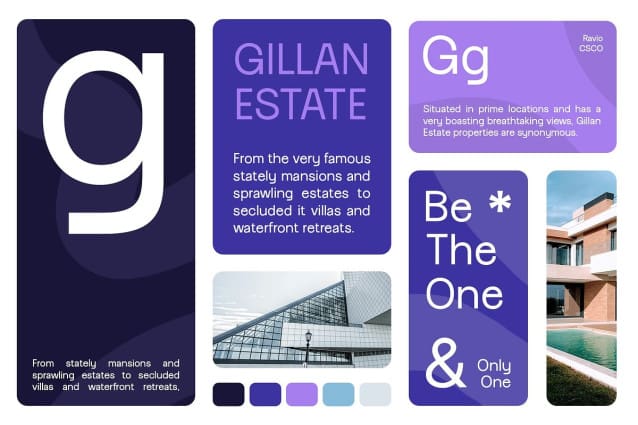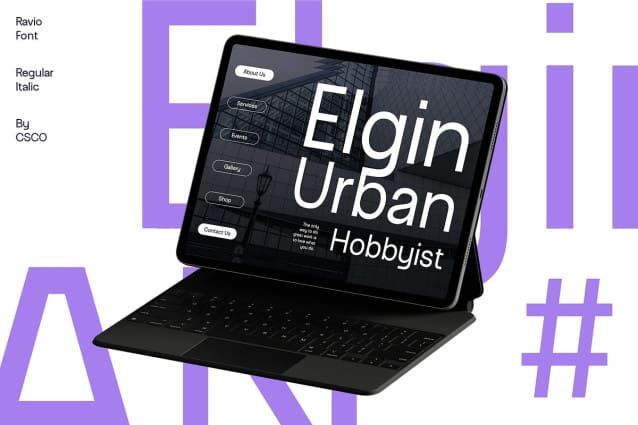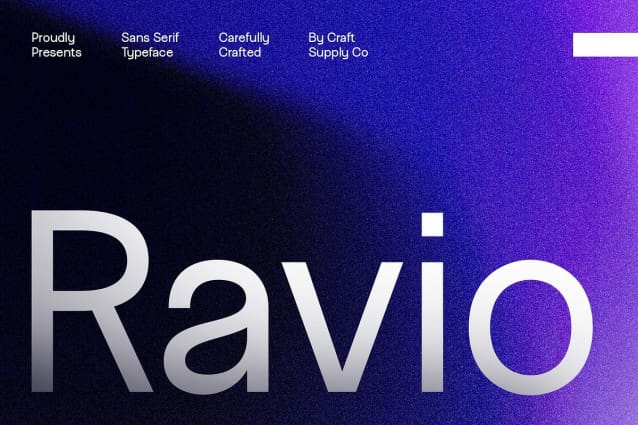
Ravio Font
Ravio Font is a normal sans-serif typeface designed to meet the demands of the professional world. Its clean lines and balanced proportions make it a versatile choice for a wide range of design applications.
With its professional and clean design, Ravio Font is perfect for corporate branding, editorial layouts, and other projects that require a modern and professional look. Its simplicity ensures readability while conveying a sense of sophistication.
Ravio Font is suitable for various design needs, from business cards to websites. Its normal sans-serif design makes it a reliable choice for projects where clarity and professionalism are key.
Elevate your designs with RavioFont, a staple for professional designers. Its versatility and clean design make it a go-to choice for projects that demand a modern and polished look.